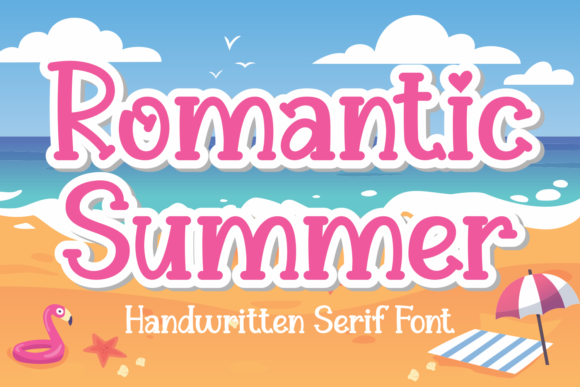
Unleash your creativity and design magic with Romantic Summer Font, a display font that exudes charm and exuberance. Step into a world of enchanting typography where your words come alive with a playful and captivating spirit. Let your imagination soar as you discover the endless possibilities that await you with this remarkable font.
Romantic Summer Font is more than just a font; it's an artistic expression that will elevate your designs to new heights. Its whimsical and cheerful characters dance across your screen, creating an atmosphere of joy and lightheartedness. Whether you're designing product labels, invitations, posters, or social media graphics, Romantic Summer Font is the perfect choice to add a touch of whimsy and delight.
With its playful curves and charming details, Romantic Summer Font is guaranteed to make a lasting impression. Imagine the smiles on your customers' faces when they receive a product adorned with a label featuring this vibrant font. Picture the joy of your friends and family as they read an invitation written in its enchanting characters. Let Romantic Summer Font be your creative companion, guiding you towards designs that are both captivating and unforgettable.